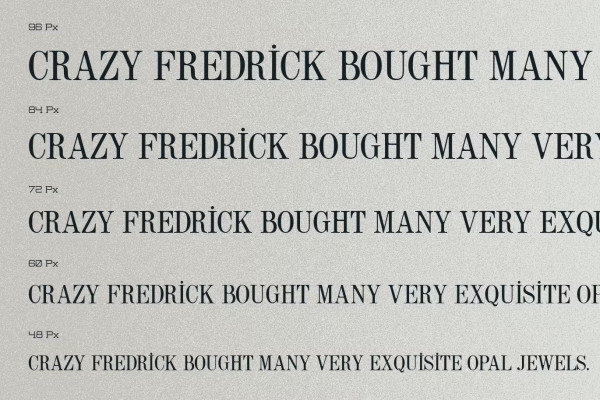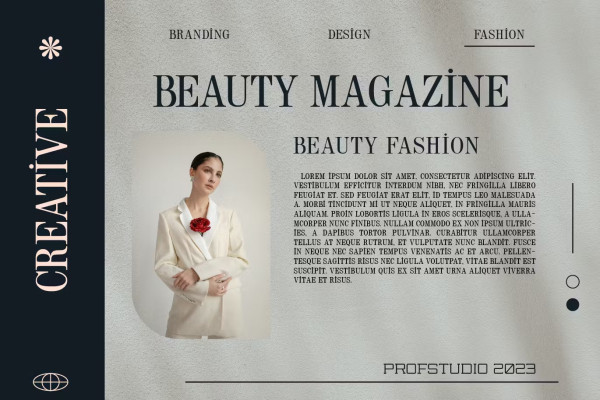
Fathia Font
Fathia Font, This serif font is stylish and sophisticated. It has a classic feel with thin strokes, sharp angles, and elegant curves. It is perfect for any project looking to add a touch of class. This font is PUA encoded which means you can access all glyphs and swashes effortlessly!